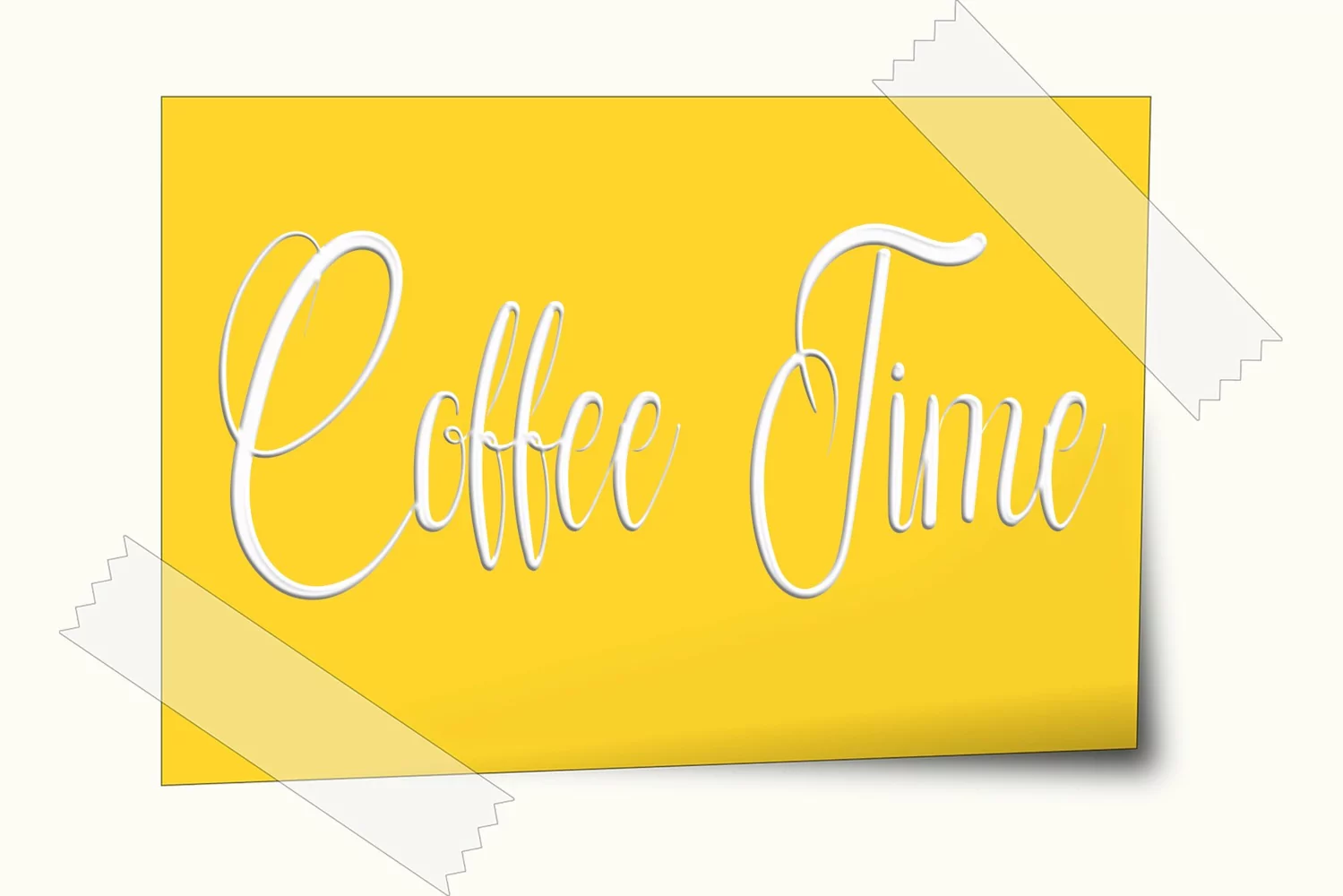
LoveIn Hearts
Introducing, this is our newest product, we call this product LoveIn Hearts,
It looks amazing with sweet touches and beautiful curves in each letter. LoveIn Hearts fonts are perfect for: wedding invitations, fashion magazines, logos, signatures, photography, watermarks, wall displays, social media,